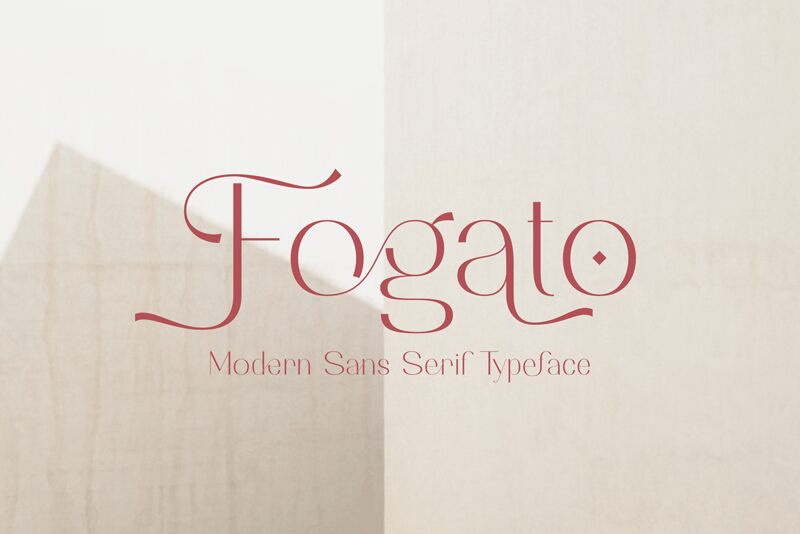
Fogato, the latest creation from font designer Toko Laris Djaja, is a sleek and modern sans serif font with a light weight that exudes elegance and sophistication. Its clean lines and minimalist design make it perfect for a variety of projects, including branding, editorial design, web design, and more. Whether you're creating a logo for a high-end fashion brand or designing a website for a tech startup, Fogato's delicate yet powerful presence is sure to impress. The versatility of this semi-bold font is unmatched when it comes to designing prints and digital content that needs to stand out with its unique style.